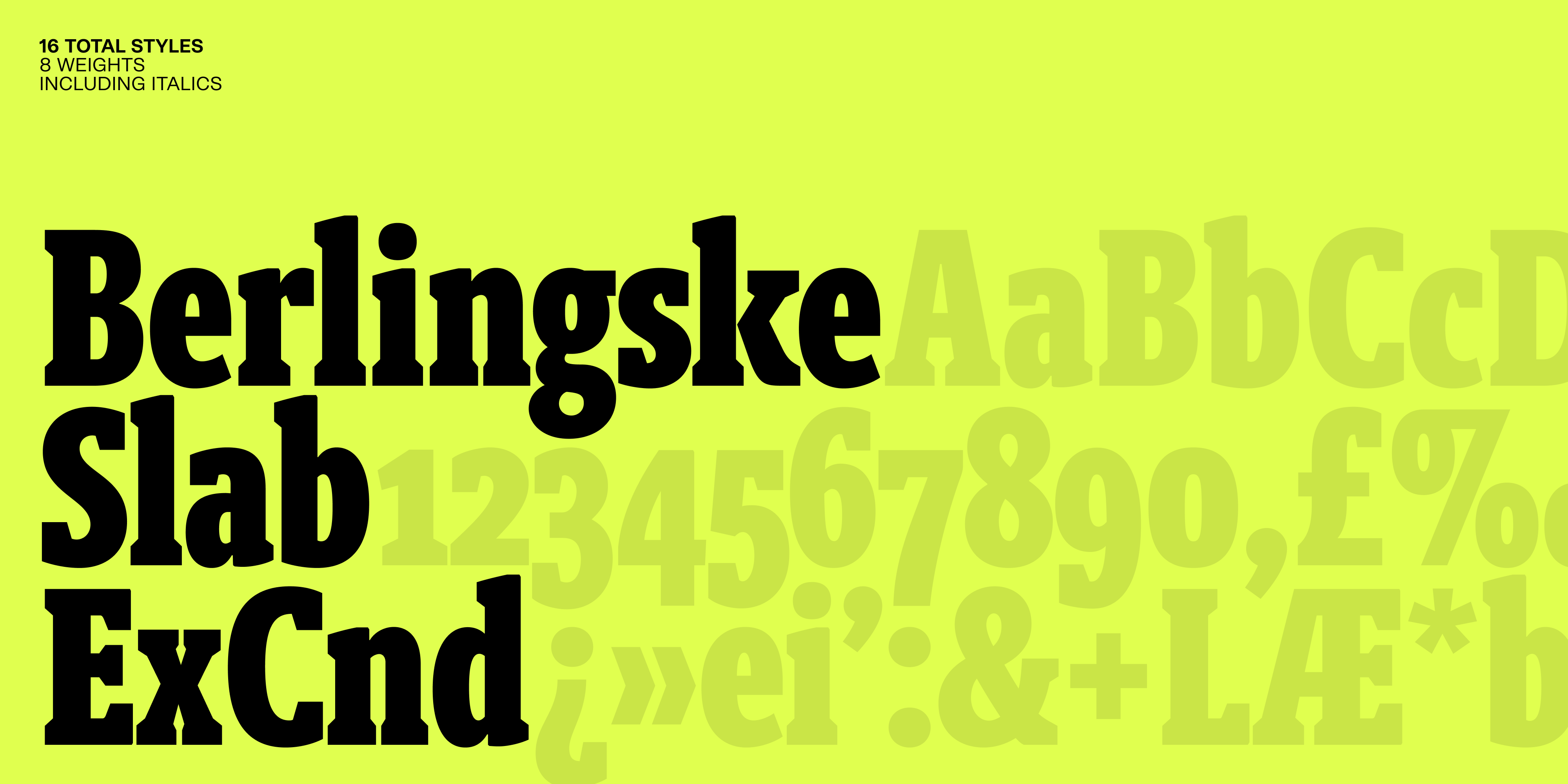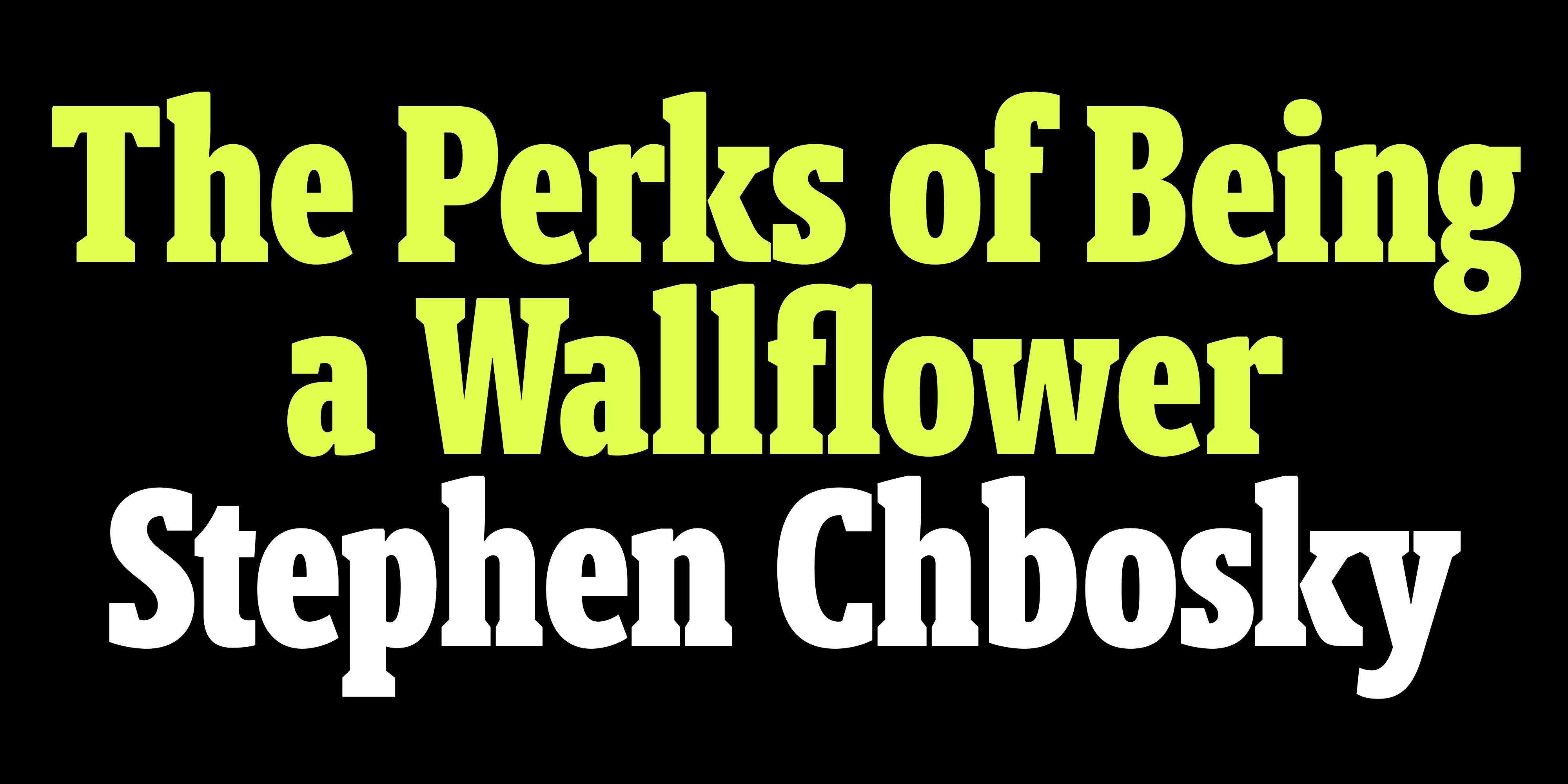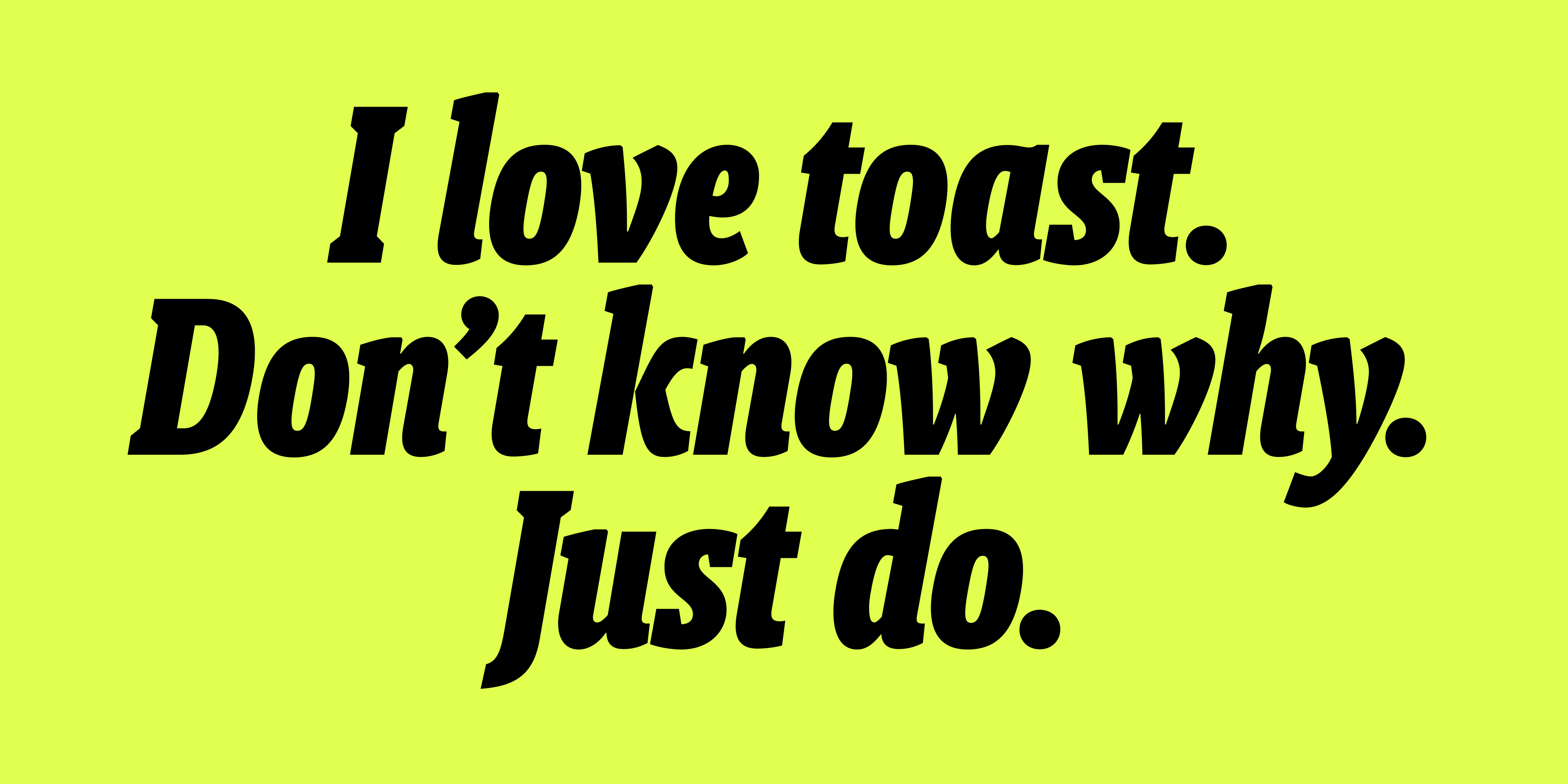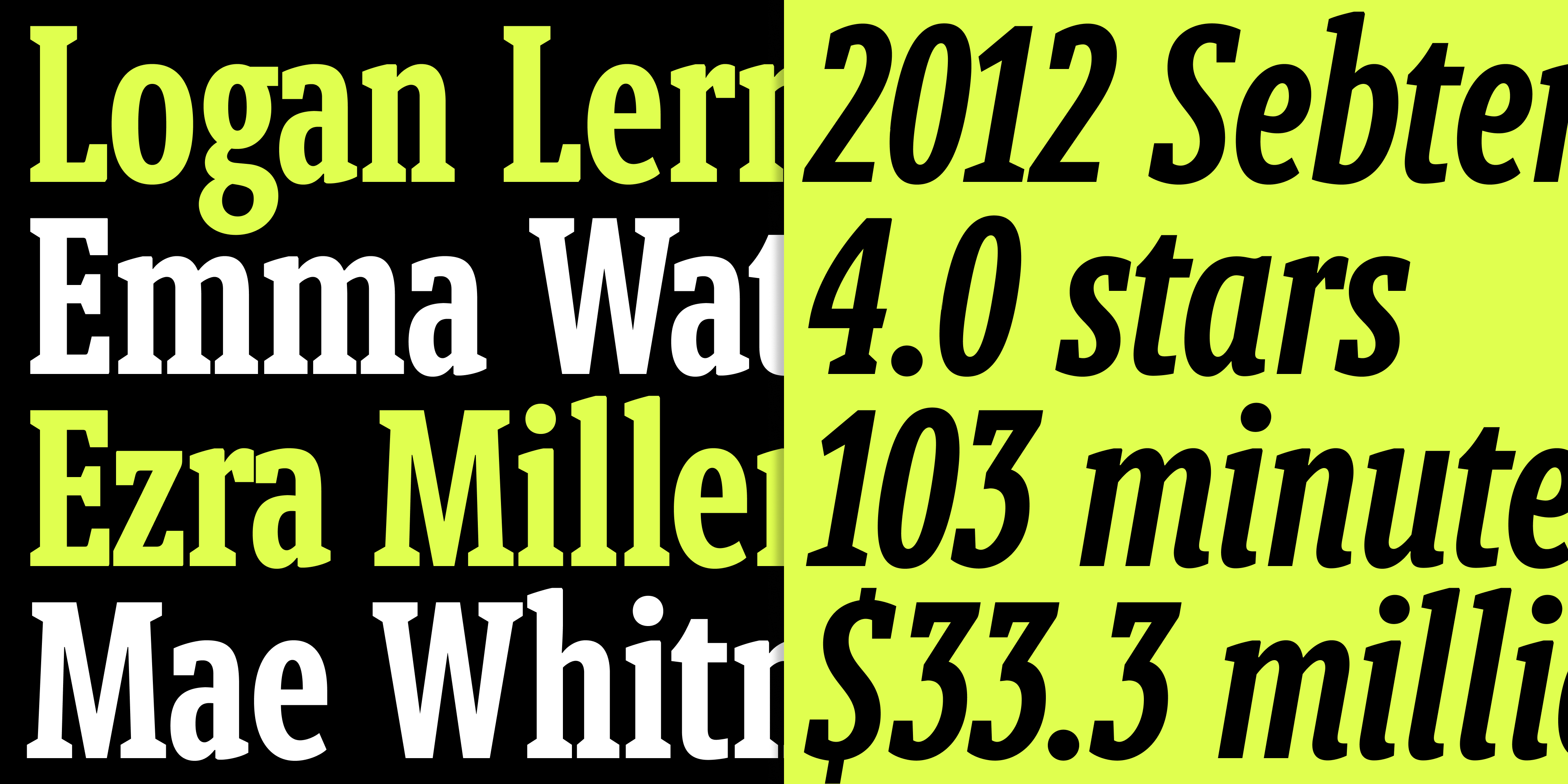
Berlingske Slab Extracondensed
Designer Jonas Hecksher
Berlingske Slab Extra-condensed provides a robust and confident expression where the vertical cathedral proportions combines with heavy serifs similar in weight to the horizontal strokes of the letters. The extra condensed style provides a high degree of usability where space is limited and it is the perfect supplement to a regular slab when there is a need for notes and appendixes. The vertical look functions extremely well for larger sizes, tabloid and display and is highly legible from a distance.